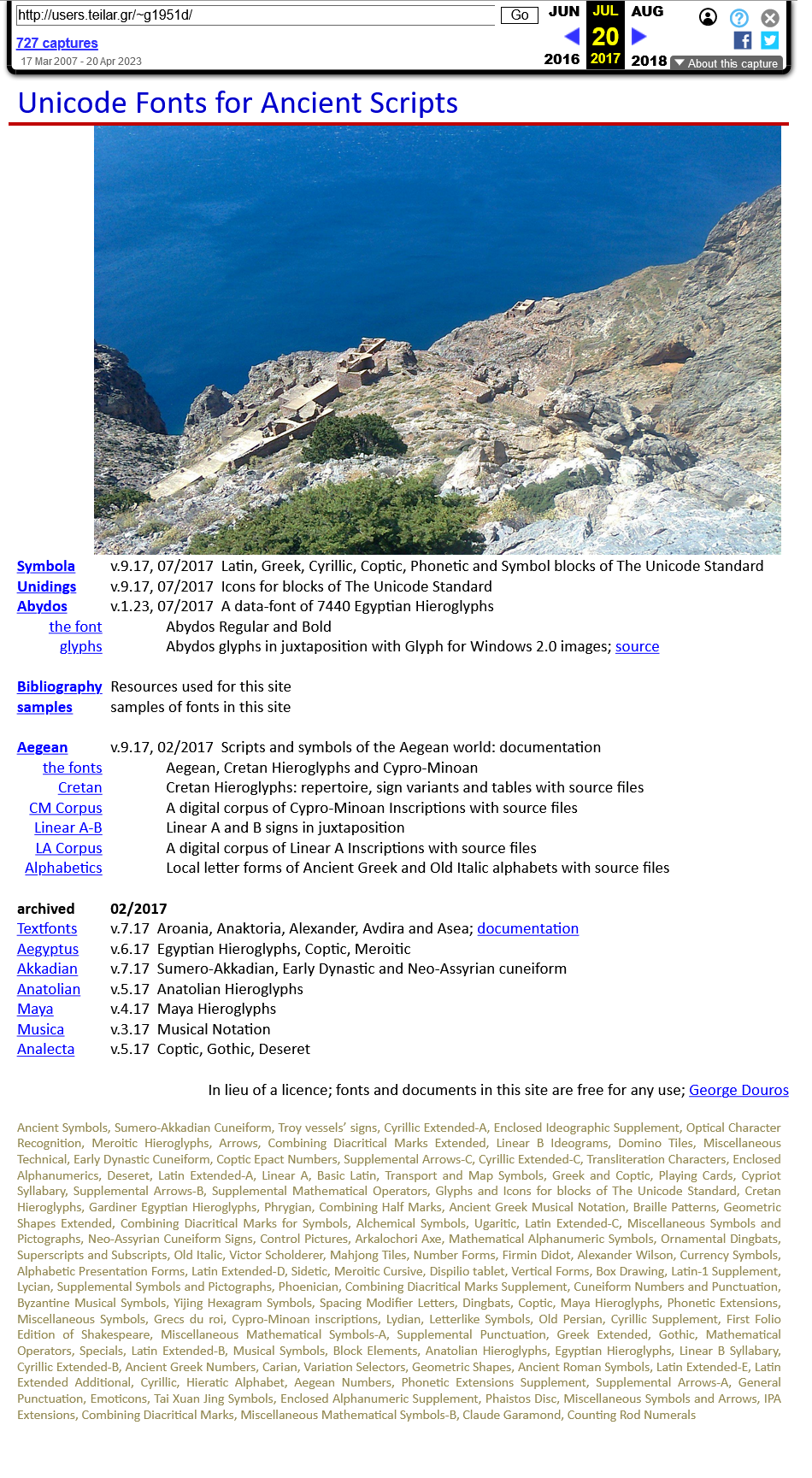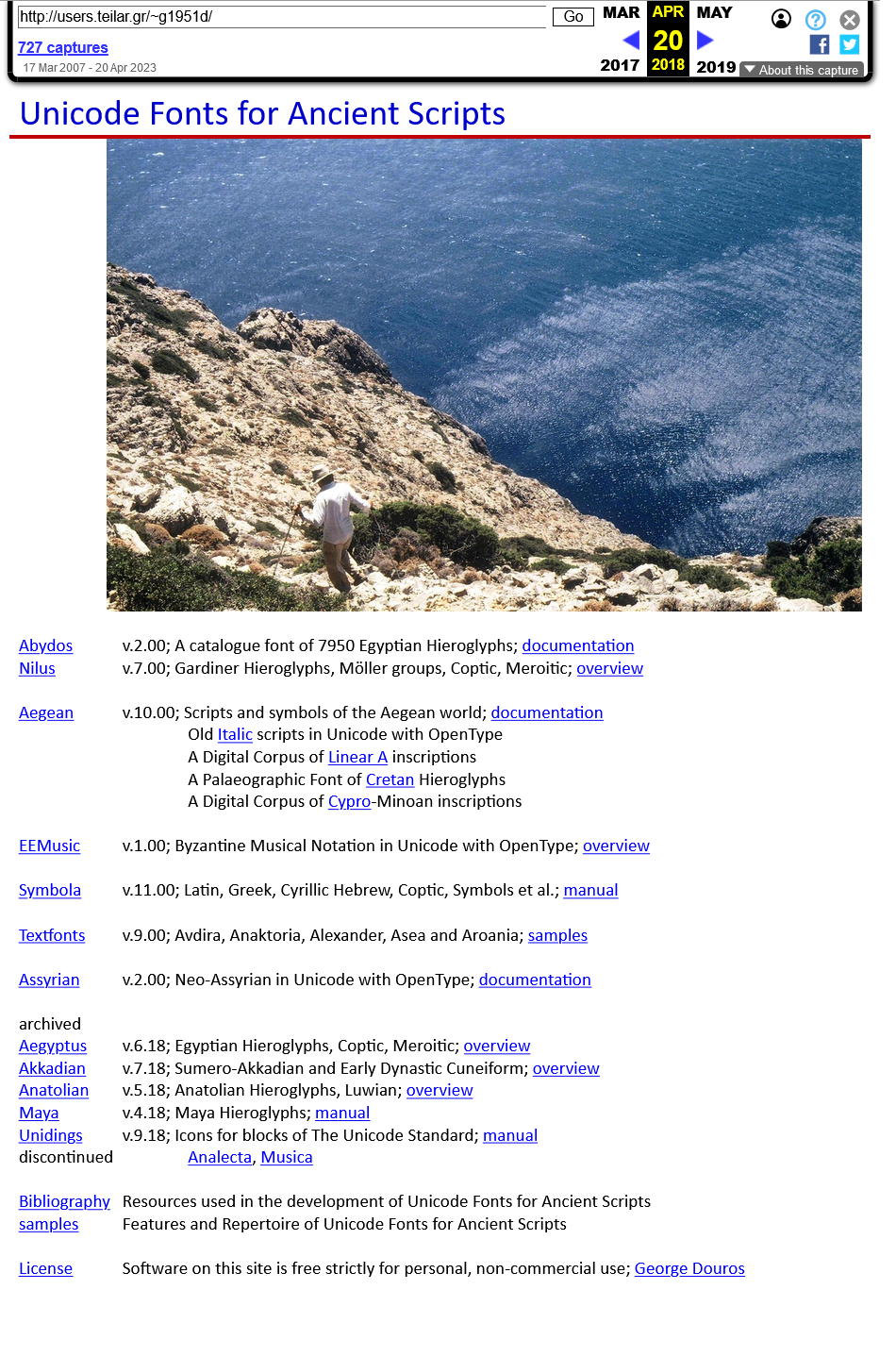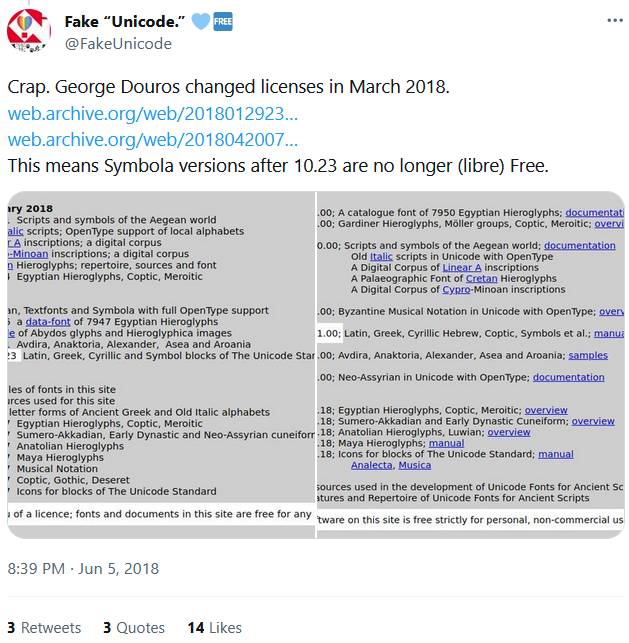
Symbola Font for Unicode No Longer Free (2018)
Symbola Font for Unicode No Longer Free
Symbola font versions after 10.23 are no longer (libre) Free.
George Douros, created a lot unicode fonts. They had a license of “free for any use”. but since March 2018, the license changed to “free strictly for personal, non-commercial use”.
here's webarchive screenshots of his website and font license.
quite interesting turn of events. George Douros is the guy who created the Symbola font, for years its the most popular and basically the only open source font for emoji. Now the license change is rather drastic. e.g. linux distro cannot use it as is.